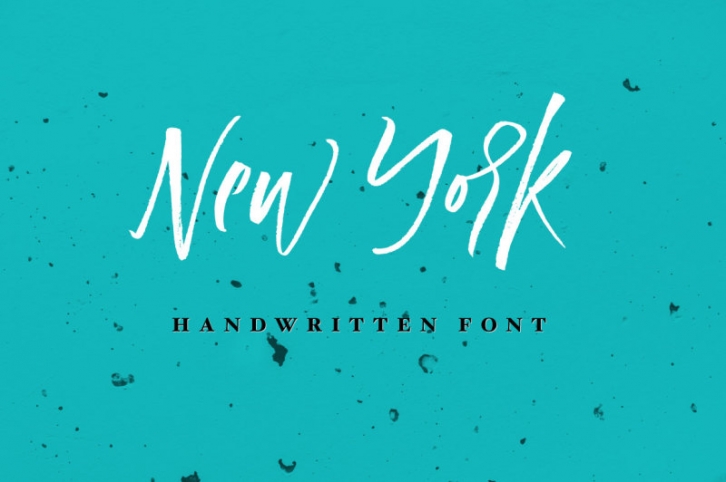
Introducing New York handwritten script font
A handwritten script font containing upper & lowercase characters, numerals, punctuation and a ton of ligatures.
• Fonts include multilingual support.
• A lot of ligatures and alternative letters.